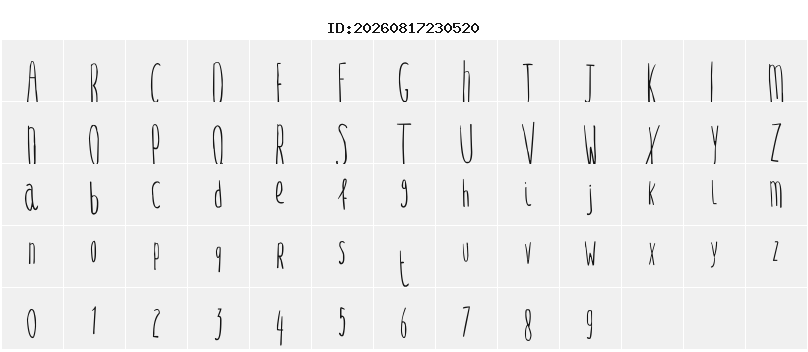
So Thin Preview
• Font Name: So Thin
• Full Font Name: So Thin
• Version: Version 1.00 May 19, 2012, initial release
About So Thin.ttf
So Thin.ttf is a modern, elegant sans-serif font designed for ultimate readability and visual harmony. Perfect for branding, headlines, web design, and print materials.